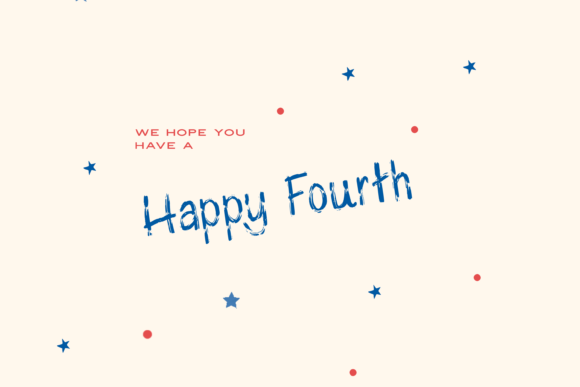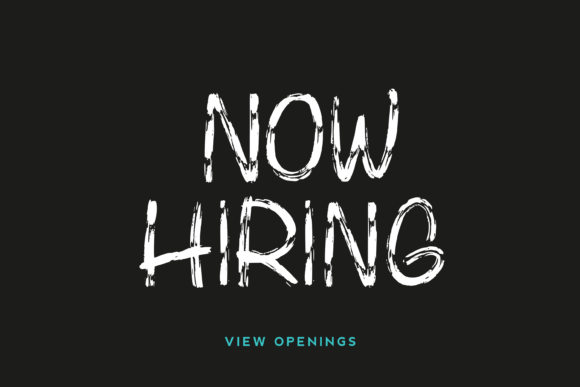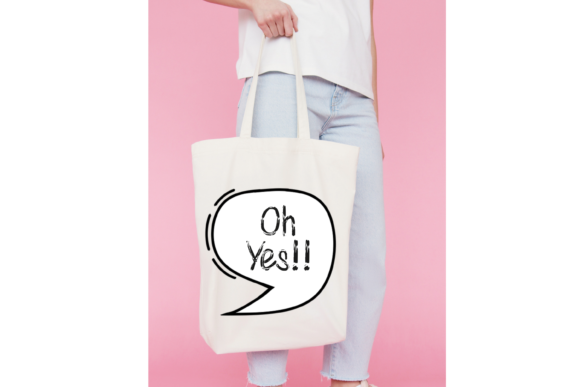
Introduction to Lucky Day Font
Have you ever been working on a creative project and found the perfect font to bring it all together? That’s exactly what happened to me when I discovered the Lucky Day Font. Its unique blend of coolness and a brushed texture instantly caught my eye and made me want to use it for everything.
Whether you’re a graphic designer, a crafter, or simply someone who loves making greeting cards, the Lucky Day Font is an absolute treasure trove of creative possibilities. Not only is it available for free download, but its high-quality design also makes it a valuable addition to any design resource collection.
With its transparent background, this versatile font is perfect for adding a touch of personality to your digital designs, presentations, and other creative projects. In this article, we’ll dive deeper into the world of the Lucky Day Font and explore why it’s a must-have for designers of all levels.
Key Features of Lucky Day Font
- Free download: The Lucky Day Font is available for free download, making it an ideal design resource for creative projects.
- High-quality design: This font features a high-quality design, perfect for those looking to add a touch of elegance to their projects.
- Transparent background: The font has a transparent background, allowing for easy customization and integration into various design elements.
- Resolution: The font is designed at a high resolution, making it suitable for use in a variety of applications, from print to digital media.
- Unique characteristics: The Lucky Day Font features unique characteristics, including intricate details and stylish letterforms, making it a standout design resource.
Honest Review: Lucky Day Font
As a designer, I’m always on the lookout for new and exciting fonts to add to my design arsenal. The Lucky Day Font caught my eye with its quirky, hand-drawn feel that’s perfect for creative projects.
What works well: ✨ The font is incredibly versatile and can be used in a variety of contexts, from greeting cards to advertising campaigns. The high quality vector graphics make it easy to resize without losing any detail.
The Lucky Day Font also includes a range of unique characters, including symbols and icons, making it a great resource for designers who want to add a personal touch to their designs. Plus, it’s a free download, which is always a bonus.
However, there are a few limitations: ⚠️ The font is only available in a single weight, which may not be ideal for designers who need a range of weights to achieve the perfect look. Additionally, the transparent background may not work well with all design elements.
Overall, I’m impressed with the Lucky Day Font and would definitely recommend it to designers who are looking for a fun and quirky font to add to their collection.
Tips for Getting the Most Out of Lucky Day Font
Use the Lucky Day Font on a transparent background to create a clean and modern design. Experiment with different font sizes and styles to add visual interest to your project.
The Lucky Day Font is perfect for:
- Creative projects, such as posters, flyers, and brochures
- Designing social media graphics and ads
- Creating a high-quality logo or brand identity